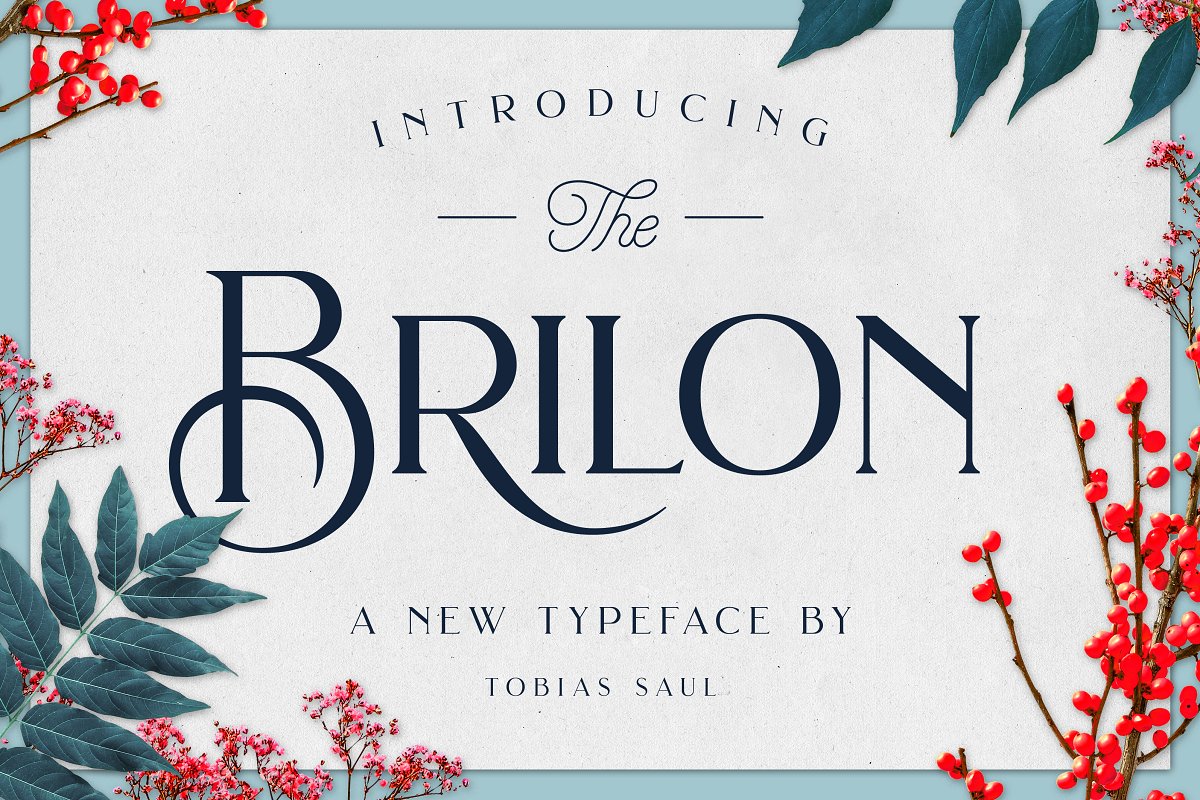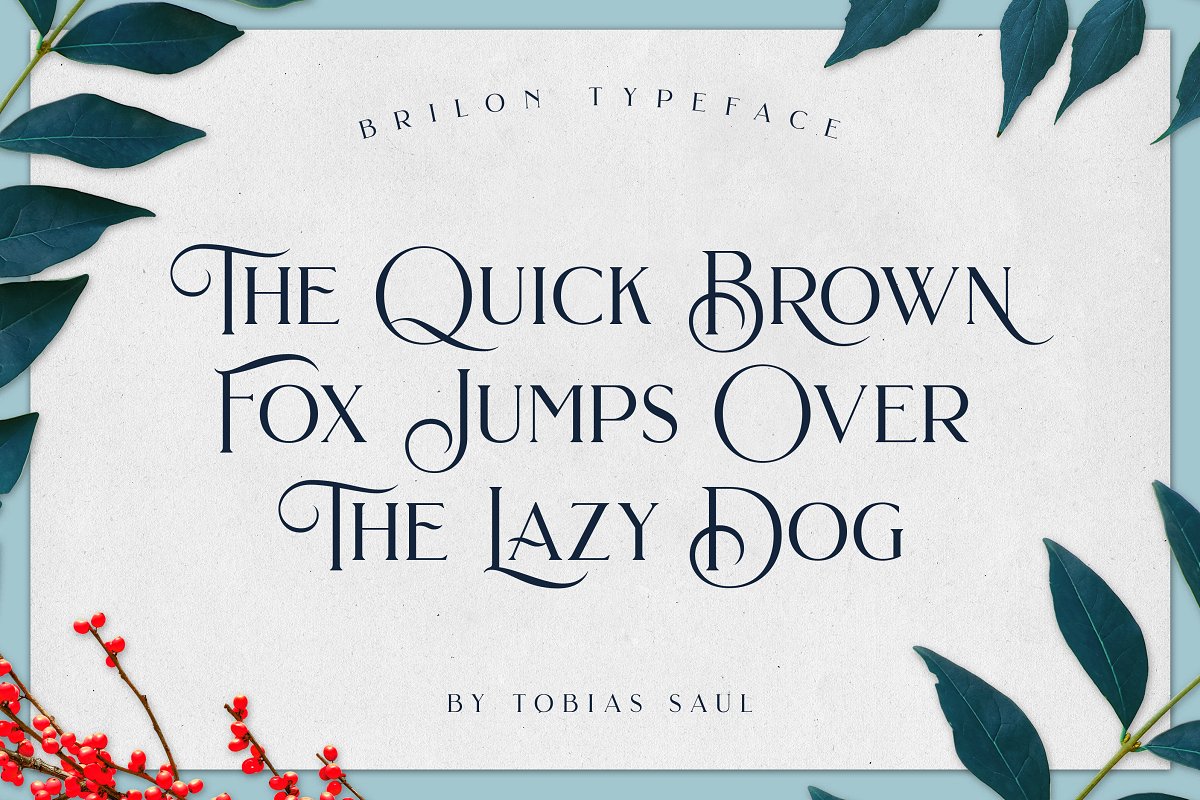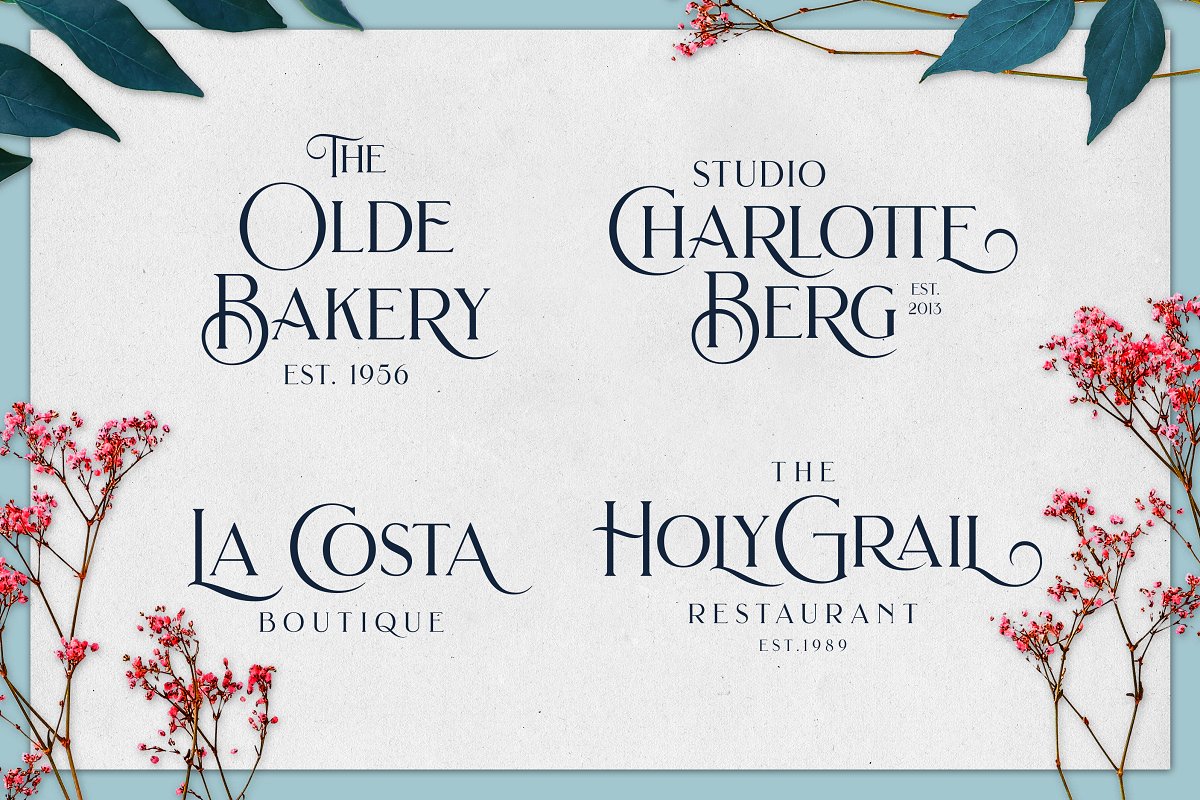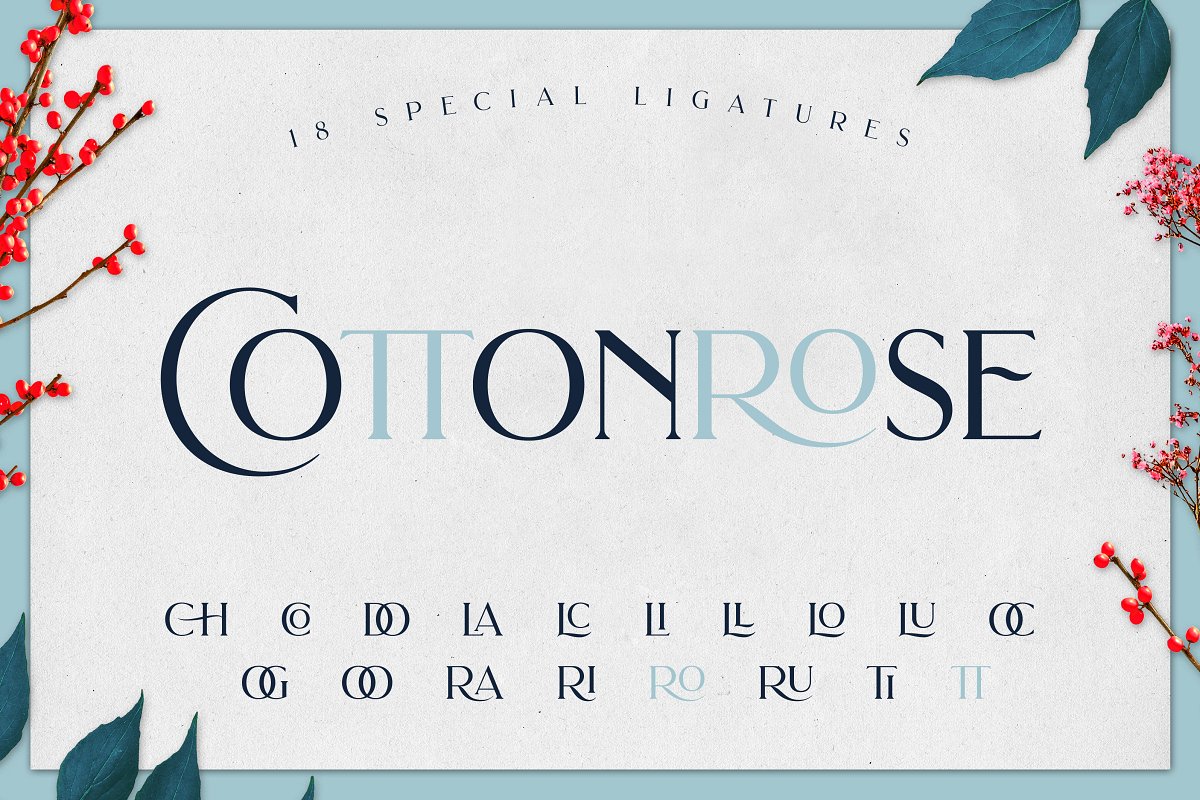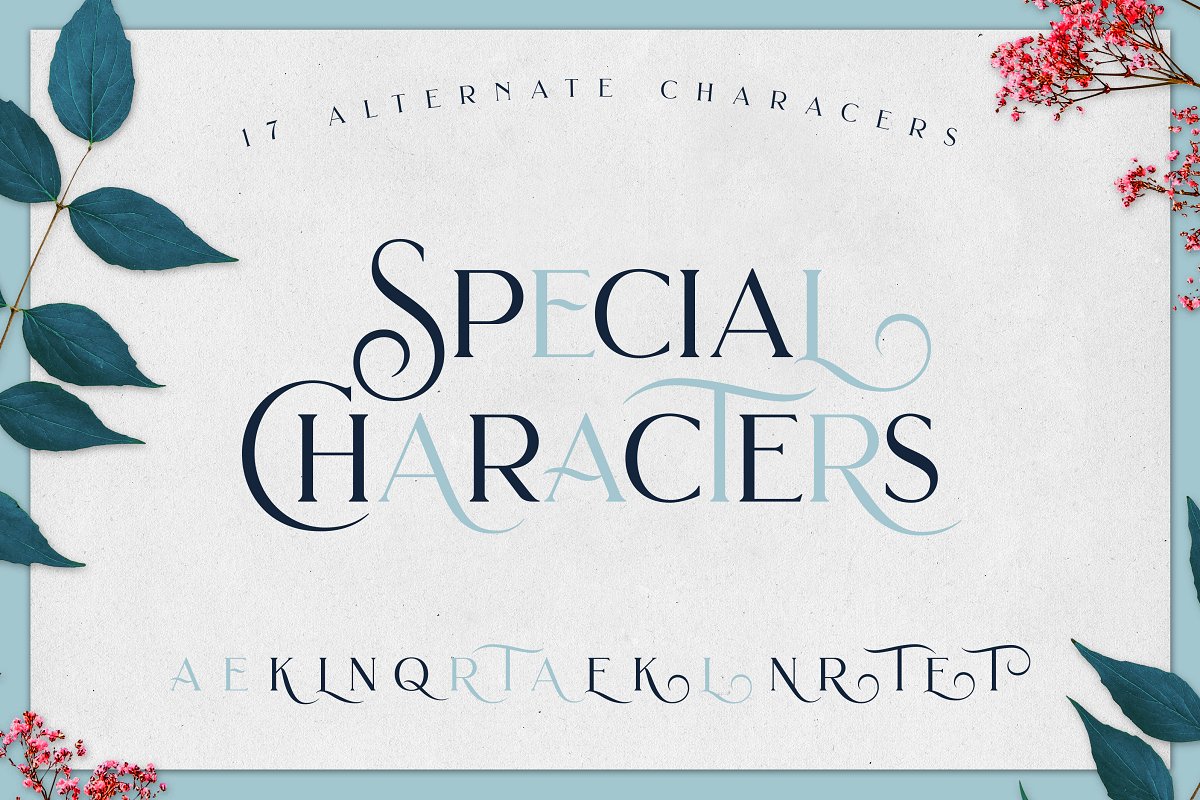
About the Brilon Font + Extras
Brilon is an elegant serif font inspired by the Art Deco era, It perfectly represents vintage esthetics in a modern and minimalist way, The font includes special uppercase letters, alternate characters, and beautiful ligatures, Furthermore, it comes with 8 botanical photos which I used in this product presentation! The font is perfect for elegant logo design, packaging or invitation cards